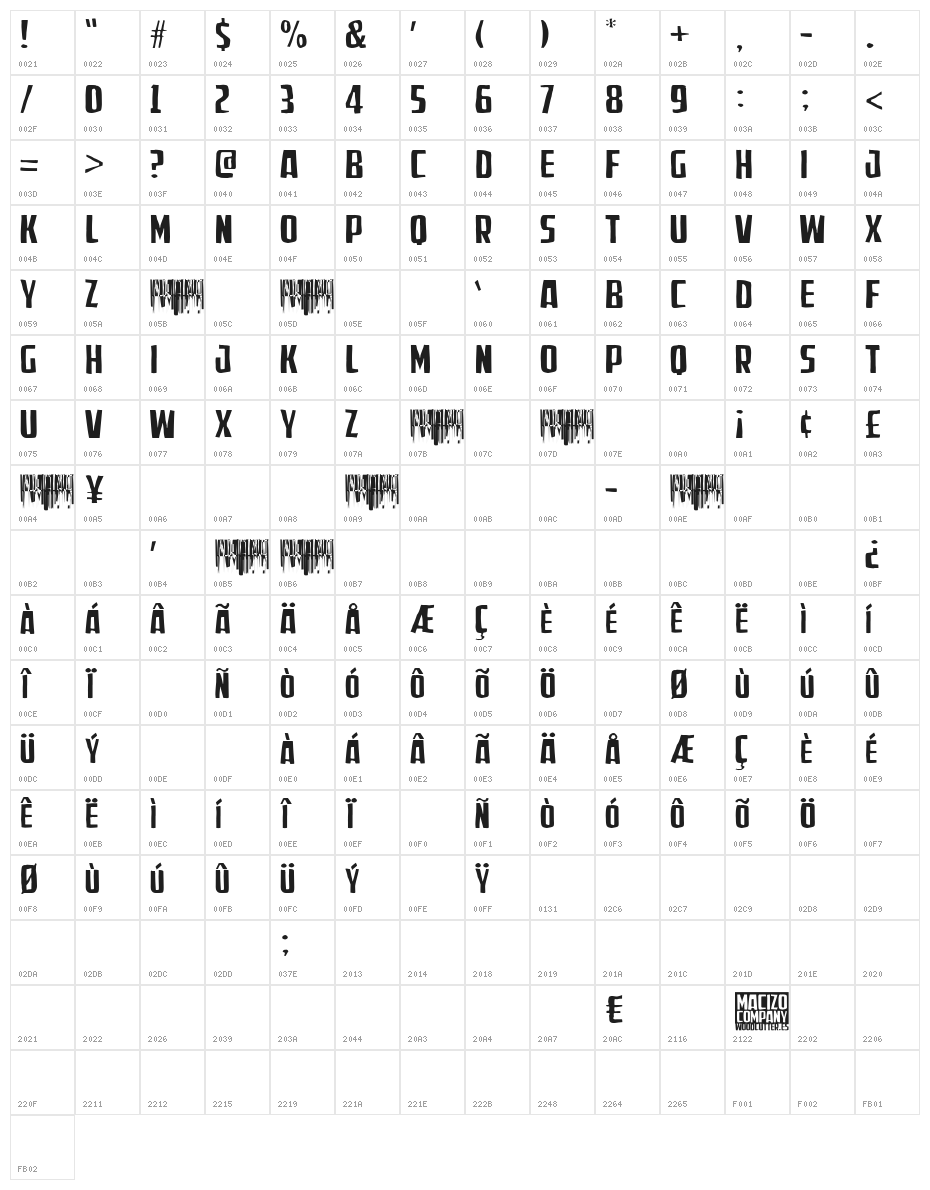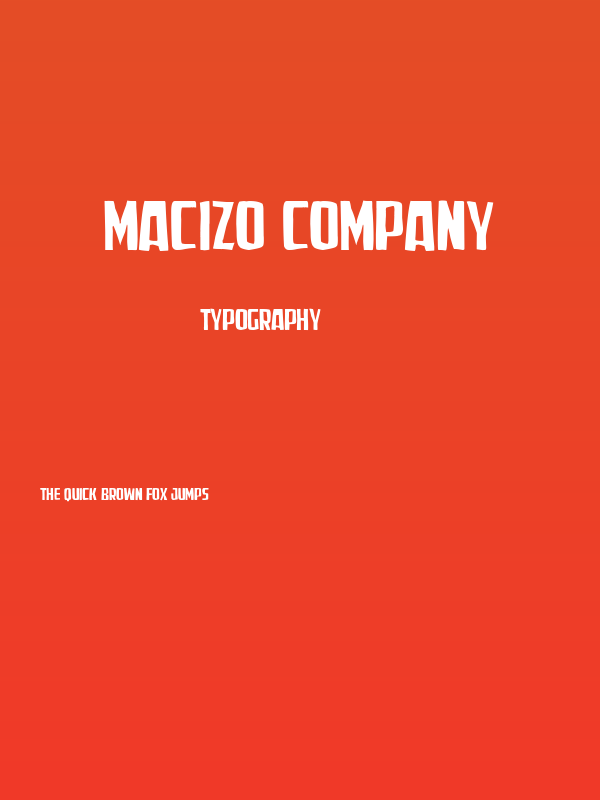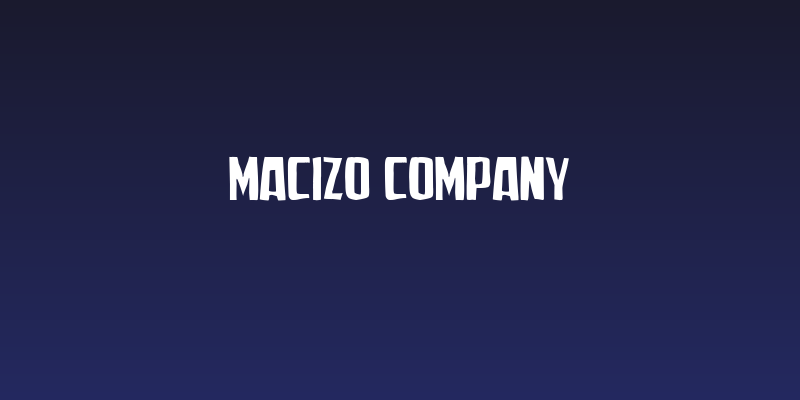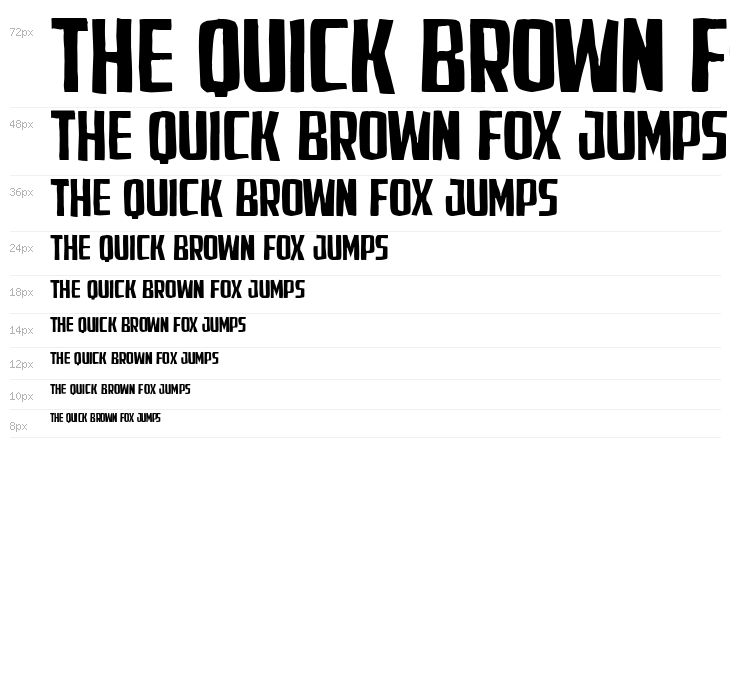
Macizo Company Font
Macizo Company Description
This font features a bold and striking design with a strong presence. The characters are thick and slightly irregular, giving them a hand-crafted appearance. The uppercase letters are prominent and assertive, while the lowercase letters maintain a consistent style. The numerals are equally bold, ensuring they stand out in any context. Special characters are included, each maintaining the font's robust style. This font is ideal for projects that require a strong visual impact, such as posters, headlines, and branding materials.
| Proposed Projects | Ideal for posters, headlines, branding, and any project needing a bold statement. |